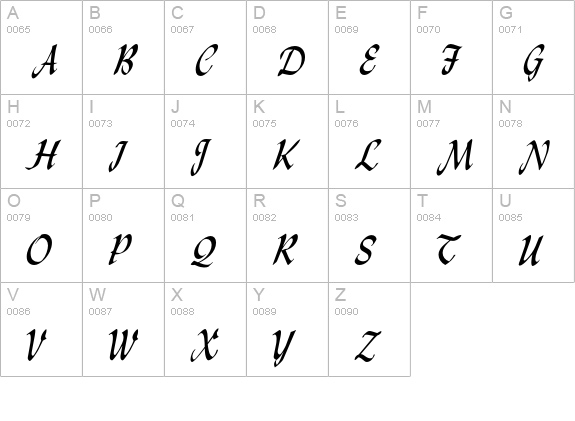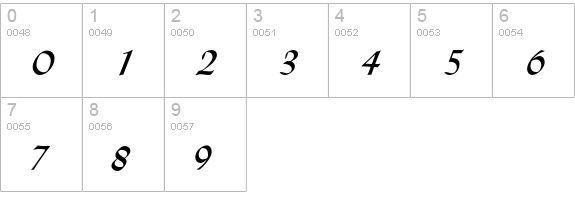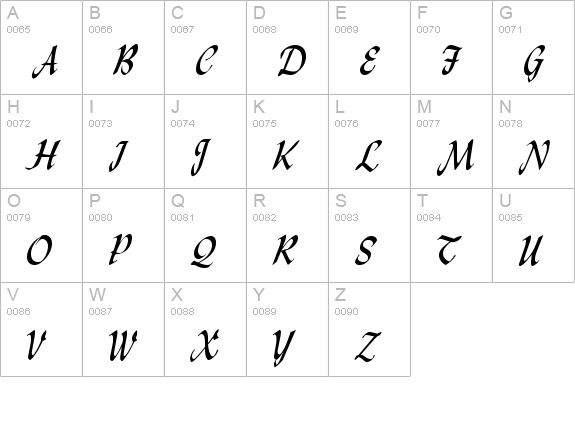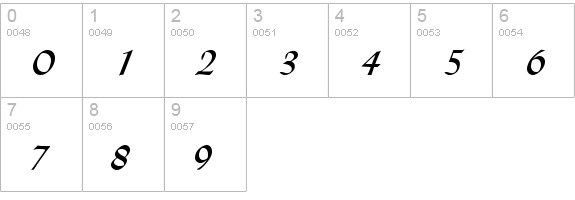
OPTILydian-Cursive Font Details
Introducing OPTILydian-Cursive font, a stunning blend of elegance and sophistication that is sure to elevate your design projects to new heights. This exquisite typeface features graceful cursive strokes with a touch of modern flair, making it perfect for adding a touch of luxury to any project. The OPTILydian-Cursive font is meticulously crafted with attention to detail, resulting in a seamless and fluid design that exudes class and sophistication. Whether you're working on invitations, branding materials, or any other creative project, this font is sure to make a lasting impression. The best part? OPTILydian-Cursive font is completely free to download at FontsMarket.com, making it accessible to all designers looking to add a touch of elegance to their work. Don't miss out on this opportunity to enhance your projects with this beautiful and versatile font. Download OPTILydian-Cursive today and let your creativity shine!